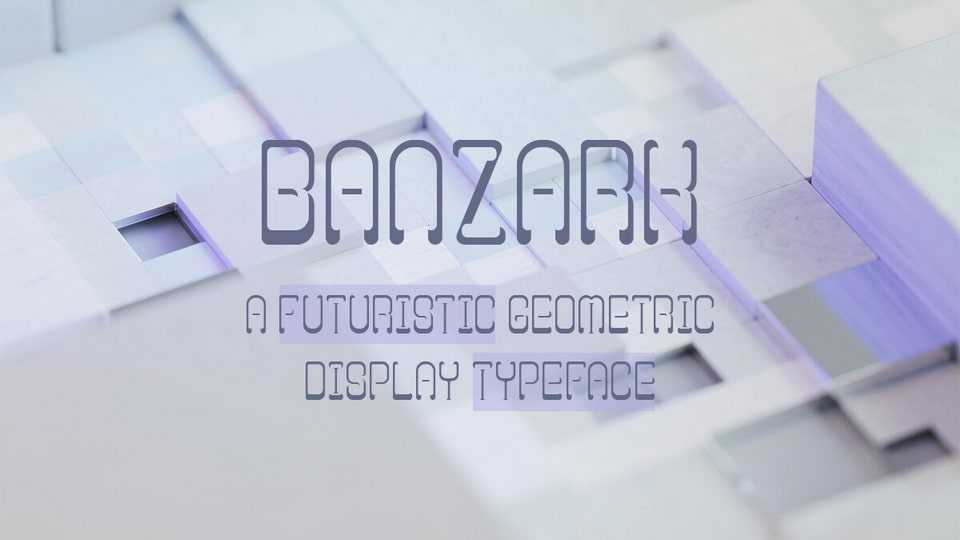
Download Banzark font, a bold and futuristic display typeface that blends geometric structure with a modern stencil aesthetic. Each letterform is crafted with smooth curves and sharp cuts.